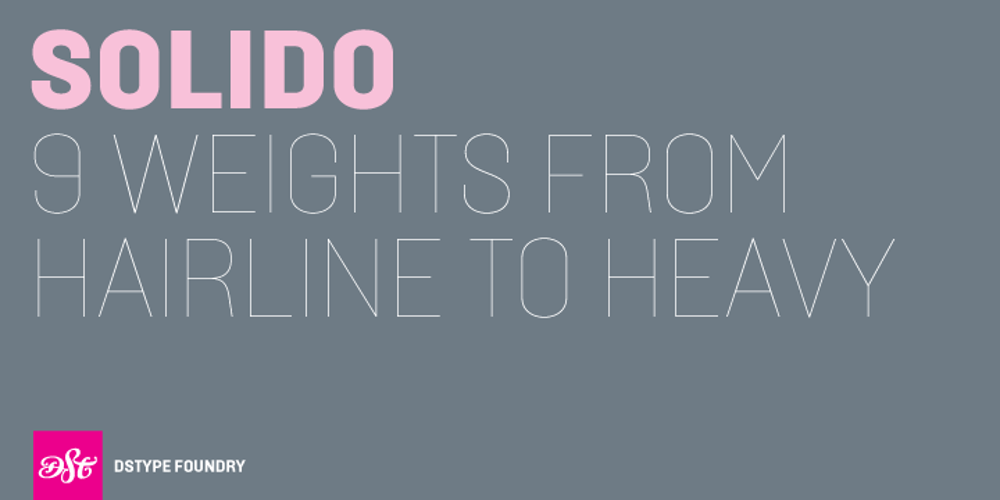
Solido Font Family was designed by Dino dos Santos, Pedro Leal and published by Monotype. Solido contains 18 styles and family package options. Solido is a very versatile and usable type system with five widths: Solido, Solido Constricted, Solido Condensed, Solido Compressed and Solido Compact, in a total of 35 fonts with many of alternate characters.